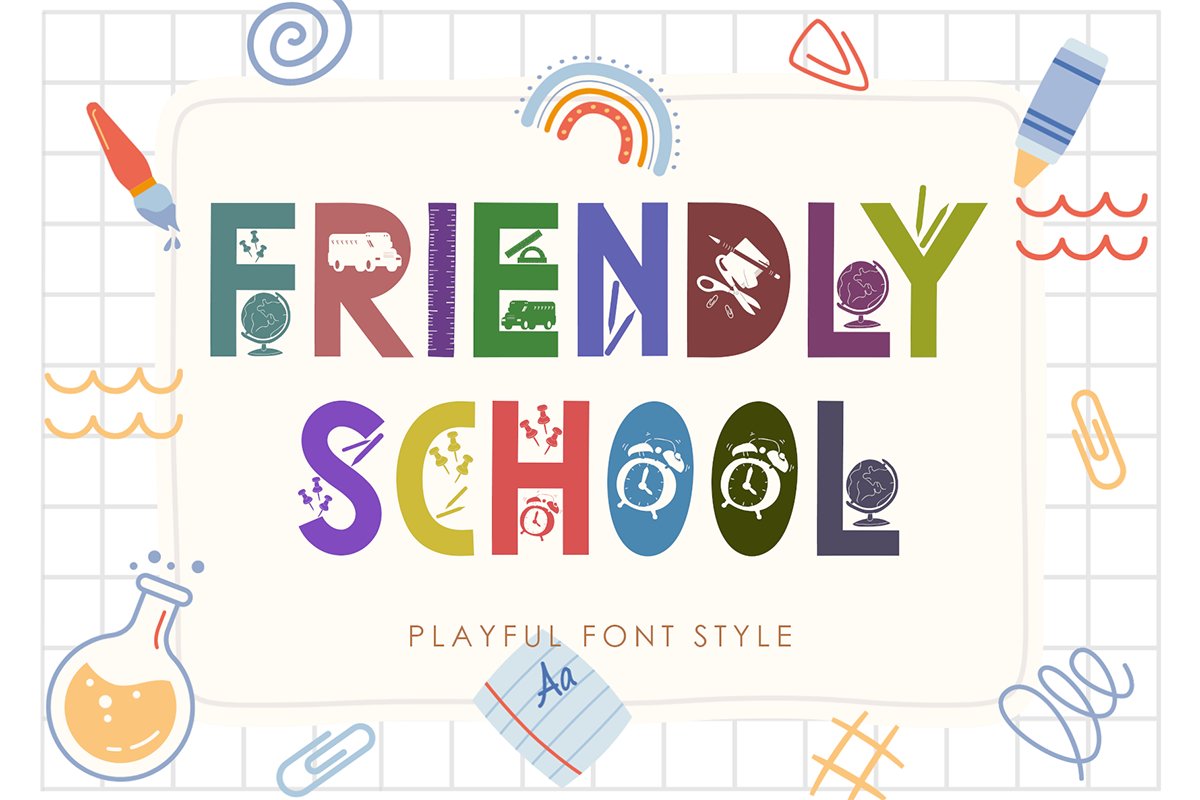
Friendly School Display Font is a unique decorative font. This font is equipped with uppercase, lowercase, numerals, punctuations and multilingual support. Very suitable for back to school, teacher’s day, Christmas, fall, autumn, Halloween, posters, prints, branding, banners, logos, stickers and others.